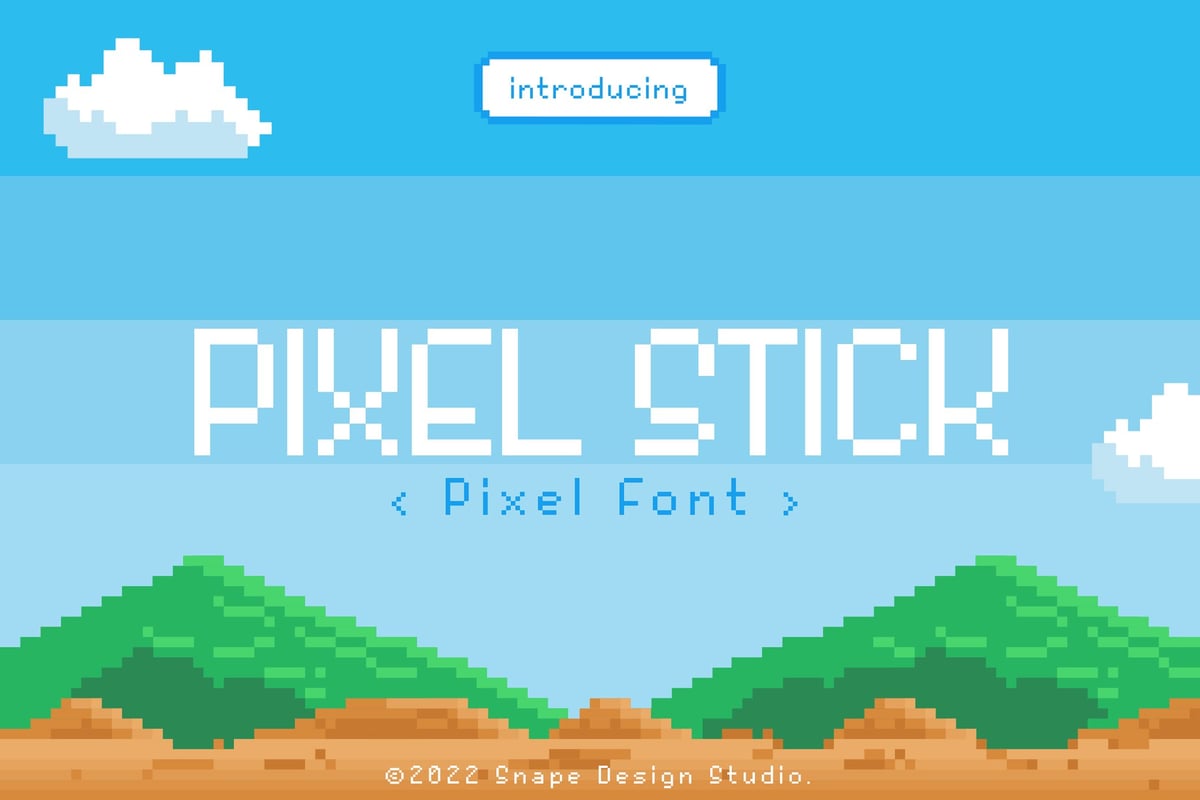
Pixel Stick - Pixel Font
Create nostalgic retro gaming vibes with this authentic pixel-perfect typeface that captures classic 8-bit aesthetics. Pixel Stick brings that beloved retro pixel font style to your creative projects, making it the perfect choice for retro game design themes. This versatile typography also works beautifully for movies, documentaries, films, logos, posters, games, book covers, headlines, titles, and countless other design applications. Transform your creative ideas with this distinctive pixel fon...